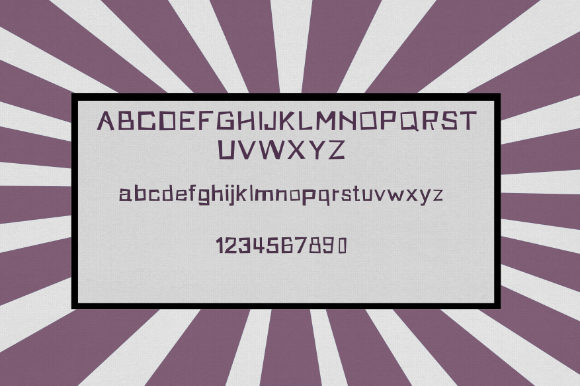
Introduction to Blocklock Font
Have you ever been in the middle of a creative project, staring at a blank canvas or screen, and thought, ‘I need something that’s going to make this design pop’? That’s exactly how many designers feel when they’re working on a project that needs a little extra oomph. For those moments, we’ve got just the thing: the Blocklock Font.
This high-quality font is a design resource that’s guaranteed to add a quirky twist to any project. With its transparent background and playful characters, Blocklock Font is the perfect addition to any creative endeavor. Whether you’re designing a logo, creating a social media graphic, or working on a larger-scale design project, this font is sure to bring a smile to your face and a touch of whimsy to your work.
Key Features of Blocklock Font
- Unique, modern design with a bold and geometric aesthetic
- Suitable for a wide range of creative projects, including logos, graphics, and typography
Honest Review: Blocklock Font
As a designer, I’ve had the pleasure of working with various fonts to bring my creative projects to life. Recently, I stumbled upon the Blocklock Font, and I must say, it’s been a game-changer for my design resource collection.
What works well about the Blocklock Font is its versatility. ✨ It’s perfect for creating high-quality designs that require a modern and edgy touch. The font’s bold lines and geometric shapes make it an excellent choice for titles, headings, and even logos.
One of the standout features of the Blocklock Font is its transparent background, which makes it easy to use in various design scenarios. This is especially useful when working on creative projects that require a clean and minimalist aesthetic.
Here are some of the key features of the Blocklock Font:
- High-quality design that’s perfect for modern and creative projects
- Transparent background for easy integration into various designs
- Perfect for creating bold and eye-catching titles, headings, and logos
While the Blocklock Font is an excellent addition to any designer’s toolkit, there are some limitations to be aware of. ⚠️ The font may not be suitable for projects that require a more subtle or elegant look. Additionally, the font’s bold lines and geometric shapes may not be ideal for designs that require a lot of texture or detail.
Overall, I’m impressed with the Blocklock Font, and I highly recommend it to designers who are looking for a high-quality, modern font that’s perfect for creative projects.
To get the most out of the Blocklock Font, use it in conjunction with other design elements to create a cohesive and visually appealing design. Experiment with different font sizes, colors, and styles to add depth and interest to your project.
The Blocklock Font is perfect for use in creative projects such as logos, business cards, and brochures. It’s also great for presentations, documents, and websites that require a clean and modern design.